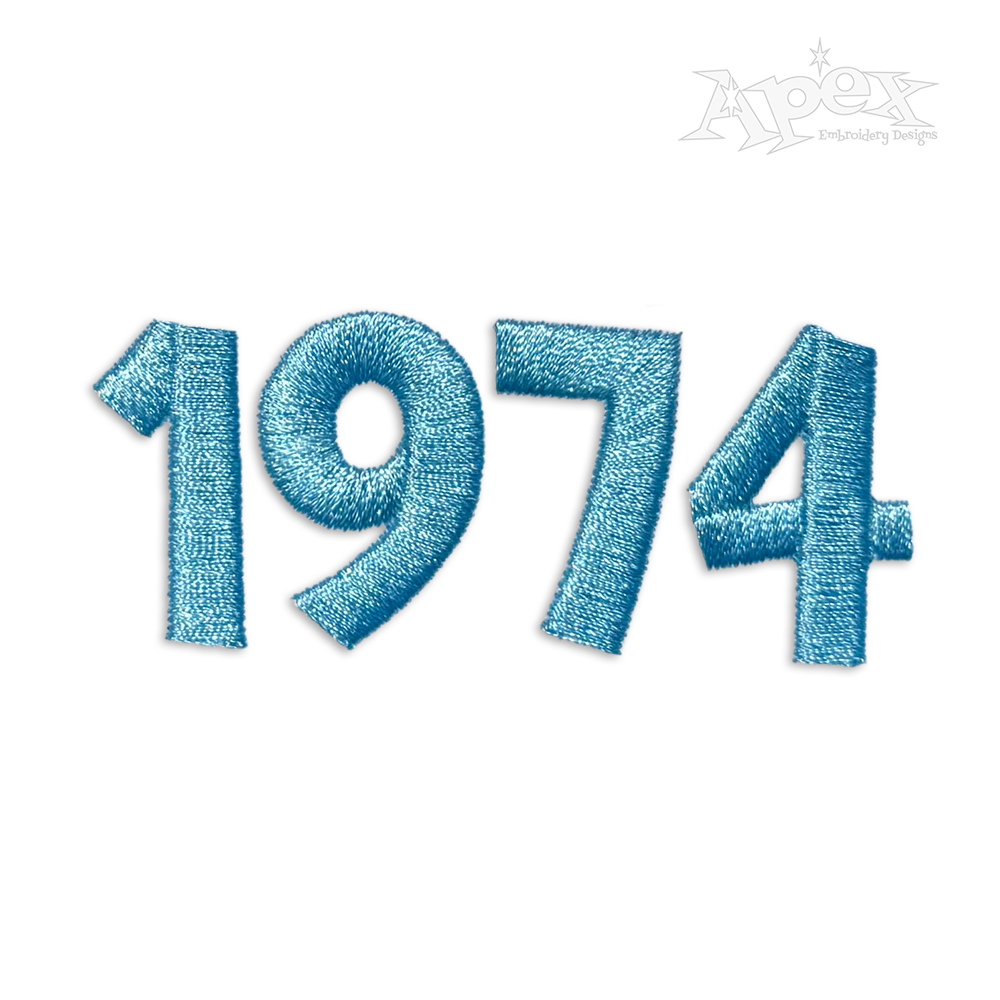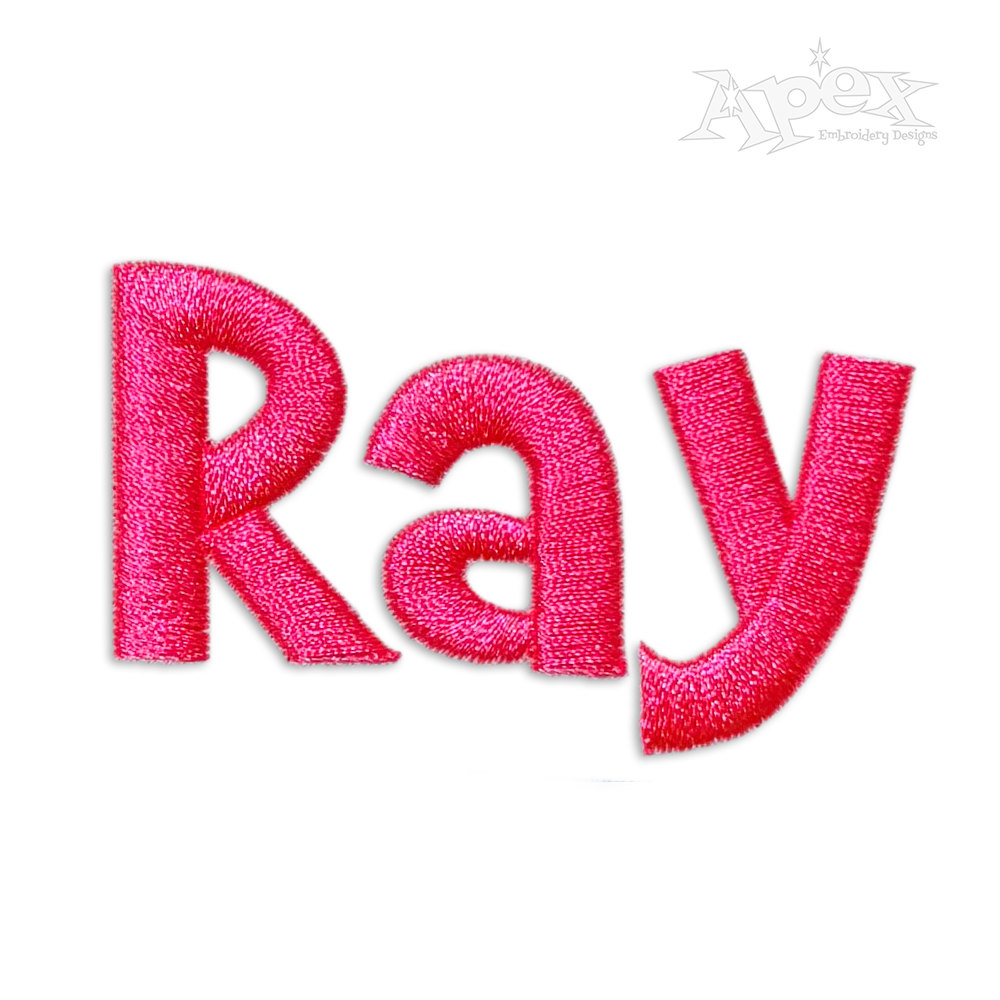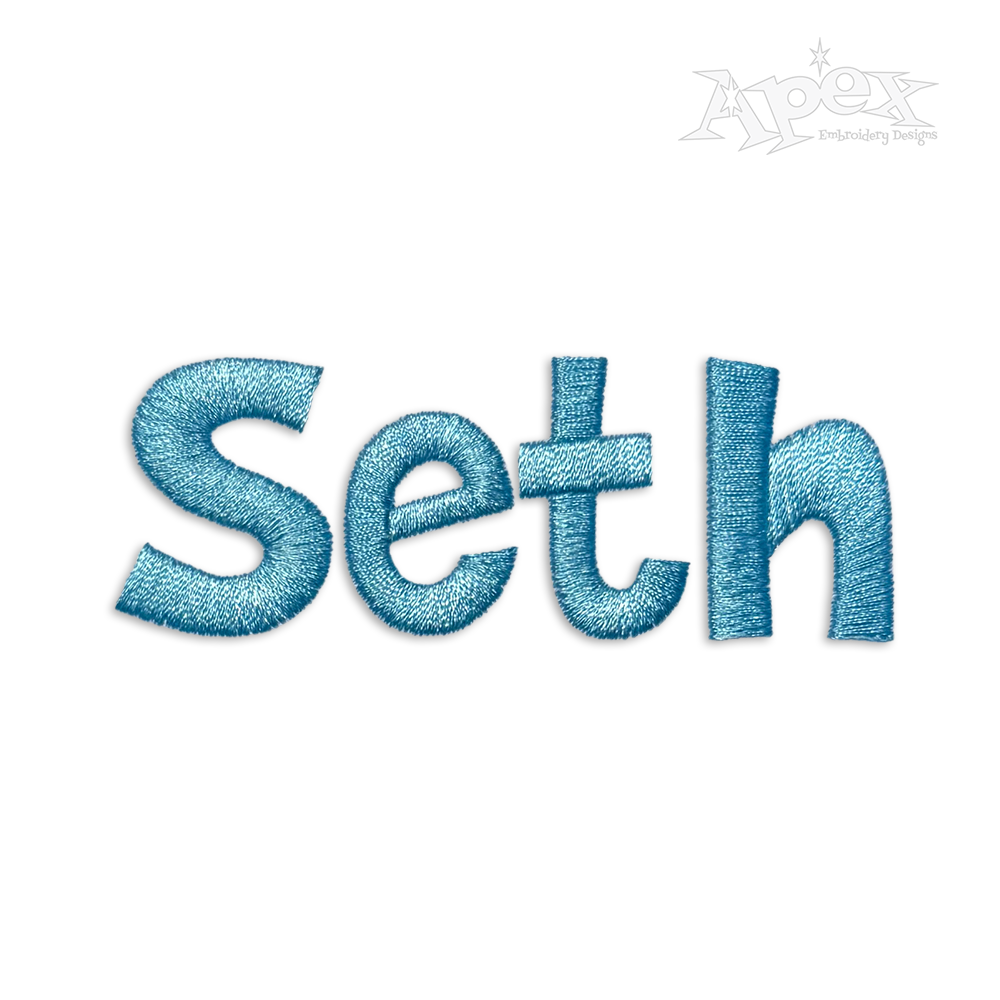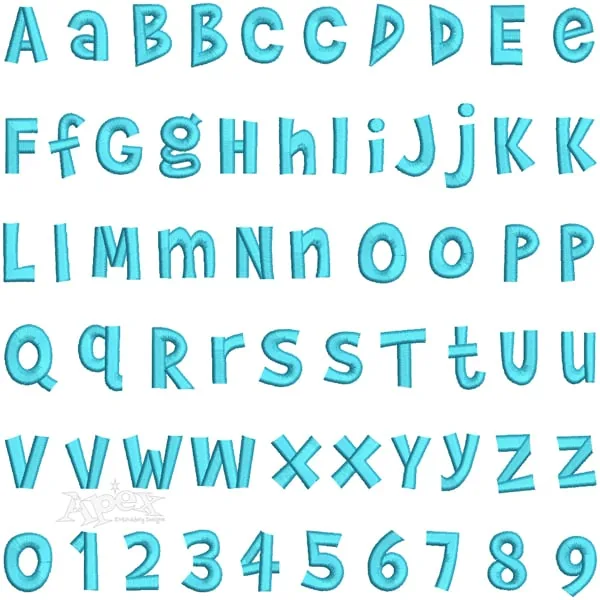
Brady Bunch Embroidery Font
Golden era television titles spark vibrant stitchwork. Bold geometry meet playful warmth. Thread path capture spirit of 1970s domestic comedy. Needle glides through fabric, laying plump satin columns with bounce, cheer, unapologetic retro character.
Project Ideas for Brady Bunch
Vibrant letterforms elevate personalized gifting and custom monogramming across vintage-inspired textiles:
- Bespoke resort wear, denim jackets, vacation shirts.
- Canvas totes, poolside carryalls, heavy duffels.
- Retro family reunion tees, anniversary sweatshirts, sibling matching sets.
- Linen cocktail napkins and cheeky bar towels for mid-century entertaining.
- Playful heirloom bedding, nursery banners, personalized keepsake blankets.
Lettering command attention across diverse garment locations:
- Left chest placement for classic vintage collegiate look.
- Center chest arch on fleece pullovers or retro tees.
- Corner diagonal positioning on linen cocktail napkins and tea towels.
- Back collar yoke or sleeve cuff for subtle bespoke touch.
- Front panel centering on structured ball caps and bucket hats.
Brady Bunch Craft & Letterform Details
Groovy hand-lettered aesthetic drive every curve. Digitizer calibrated pull compensation so flared stems stay plump, never thin or puckered. Heavy ascenders taper into crisp terminal corners. Wide counters inside lowercase loops keep shapes distinct under dense thread coverage. Clean underlay anchor base, let top satin sheen catch light across varied angles. Alphabet balance retro swagger with balanced tension control, ensuring smooth machine run from capital letters to compact numerals.